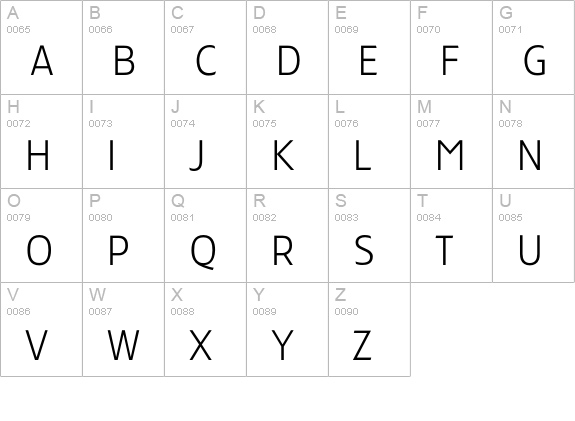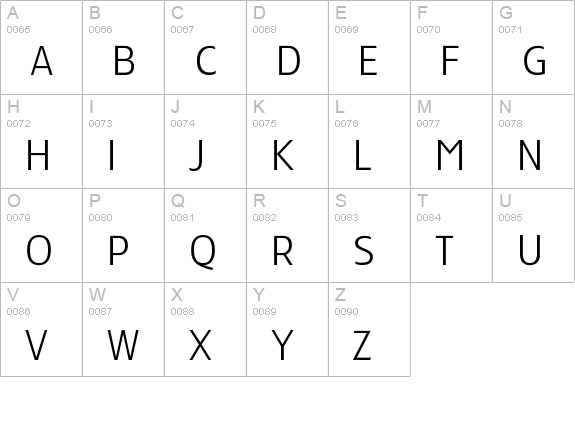
TFForever-Light is a refined, elegant variant in the TFForever typeface family \xE2\x80\x94 well suited to elegant body text, refined sub-headings, and luxury branding.
Introducing TFForever-Light, a captivating and versatile font that will illuminate your designs like never before. With its delicate strokes and elegant curves, this font embodies the essence of timeless beauty and sophistication. TFForever-Light is the perfect choice for those seeking a font that effortlessly blends modernity with tradition. Its clean and minimalist design is infused with a touch of artistic flair, making it suitable for a wide range of creative projects. Whether you're designing a logo, crafting invitations, or creating stunning graphics for your website, TFForever-Light will undoubtedly elevate your work to new heights. Its carefully crafted letterforms exude grace and refinement, ensuring that your message is conveyed with utmost elegance. And the best part? TFForever-Light is available for free! Yes, you read that right – this remarkable font is freely available to download at FontsMarket.com. Unlock your creativity without spending a penny and bring your vision to life with this exceptional typeface. Designed with utmost precision and attention to detail, TFForever-Light offers a wide range of glyphs, allowing you to effortlessly express yourself in any language or style. Its legibility and readability make it a versatile choice for both print and digital media, ensuring that your message is always delivered with clarity and impact. Whether you're a seasoned designer or just starting your creative journey, TFForever-Light is the perfect companion to help you make a lasting impression. Download this font today from FontsMarket.com and embark on a design adventure like no other. Unleash your creativity and let TFForever-Light guide you towards creating extraordinary designs that will leave a lasting impression on your audience.